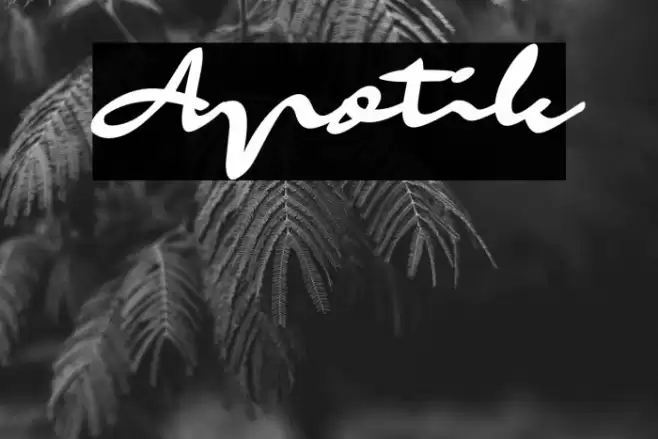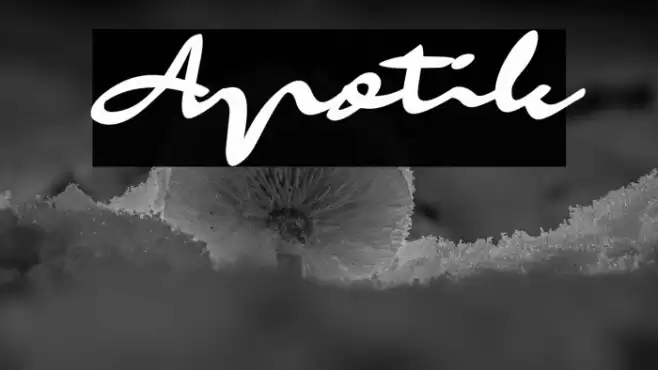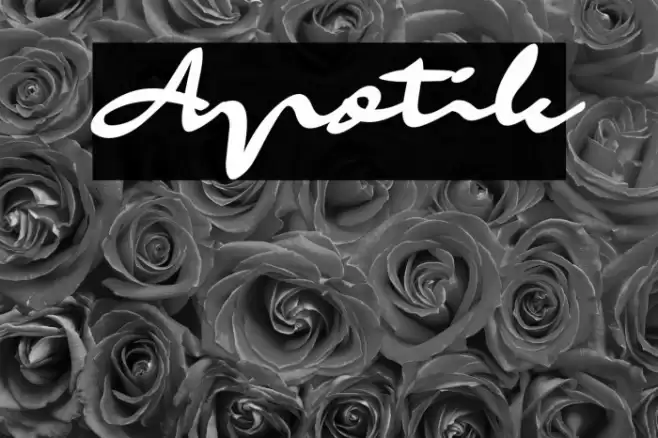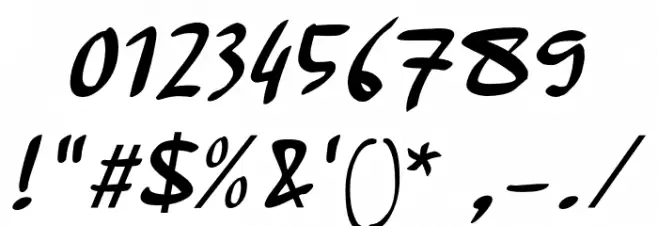
Apotik Font
Apotik Description
This font features a bold and expressive script style, characterized by fluid, cursive strokes that convey a sense of elegance and dynamism. The uppercase letters are slightly more angular, providing a striking contrast to the smoother, more rounded lowercase characters. Numbers and special characters maintain the same flowing aesthetic, ensuring consistency across all elements. The overall appearance is both artistic and legible, making it suitable for a variety of creative applications. The boldness of the strokes adds a sense of confidence and flair, while the script nature lends itself to personal and informal contexts.
A bold, expressive script font with fluid, cursive strokes from Uncategorized fonts.